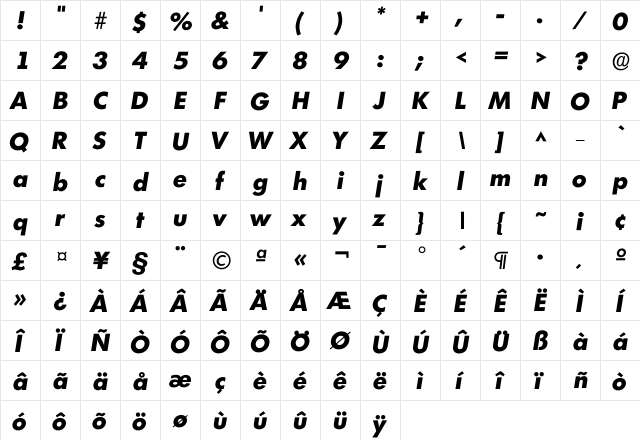
Ilimerick ExtraBold
Design Context for Ilimerick Typeface
Ilimerick is a composed and adaptable typeface that performs quietly and consistently across a wide range of design contexts. The heavy weight commands attention and anchors typographic hierarchies.